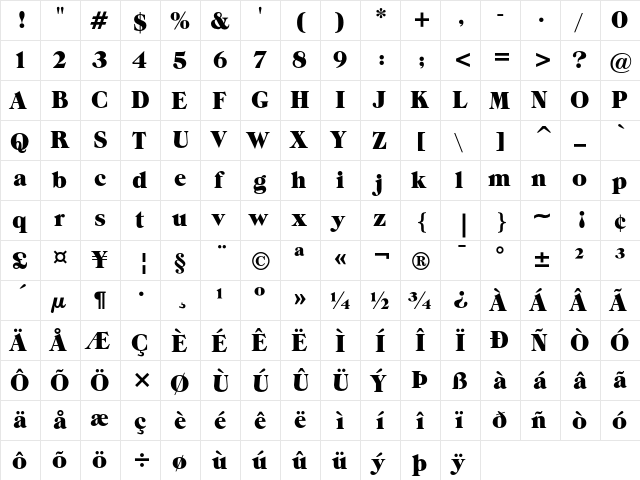
ITC Grouch Regular
Design Context for ITC Grouch Typeface
ITC Grouch is a composed and adaptable typeface that performs quietly and consistently across a wide range of design contexts.